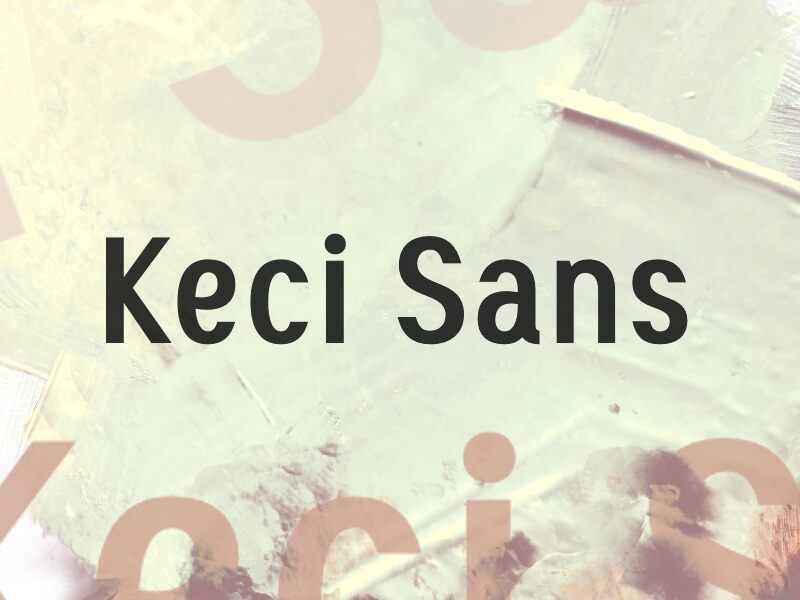
Keci Sans
Keci Sans font by wep is a free sans serif typeface that gives you bold impact without losing clarity. Its chunky strokes and tight, upright build hit hard at large sizes, while the clean curves keep it readable and grounded. Letters sit close and confident, creating a solid block of ink that feels strong, modern, and slightly compressed—great when space is tight but you still want volume.
Using Keci Sans, you can push attention-grabbing headlines, posters, banner ads, packaging, and social media graphics that need to shout in a single glance. This free font also works well in punchy logo wordmarks and signage where sturdy forms matter. For longer supporting text, pair Keci Sans with a lighter, more open sans at smaller sizes to keep the visual hierarchy clear and comfortable.